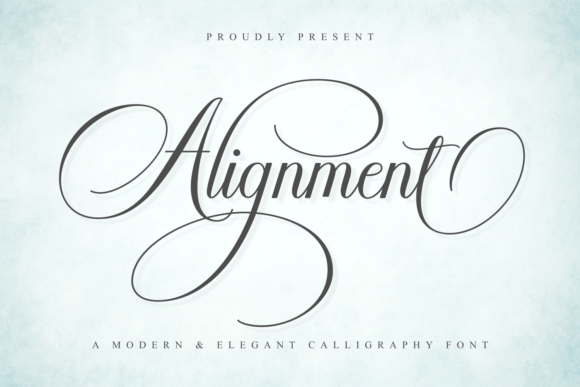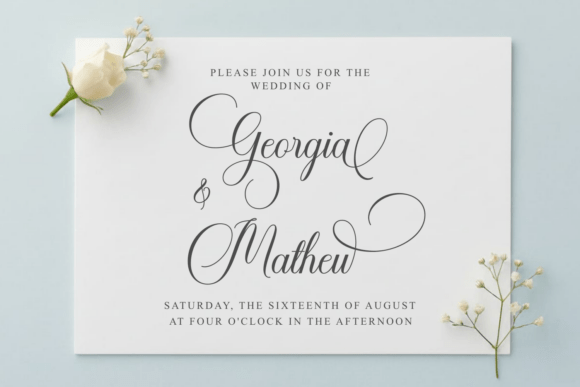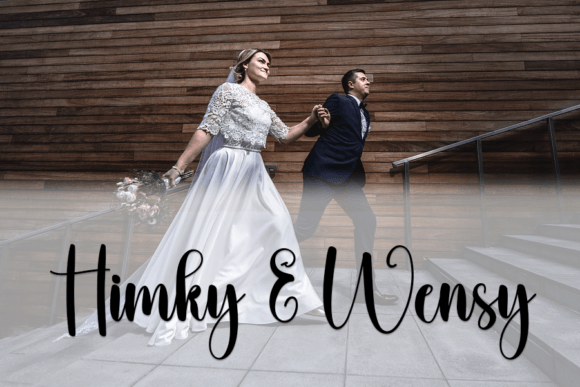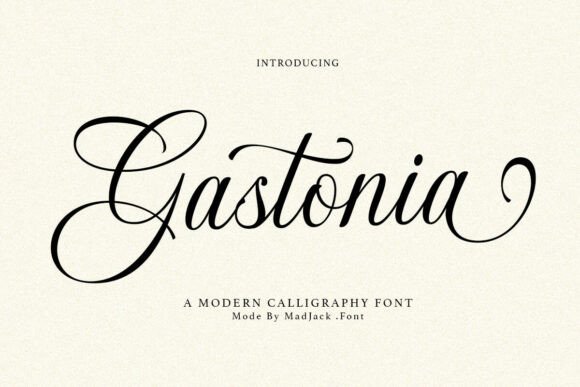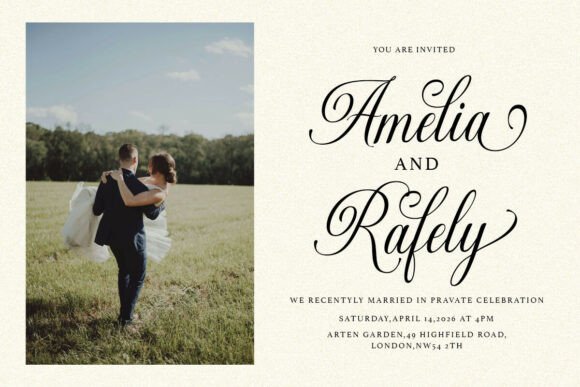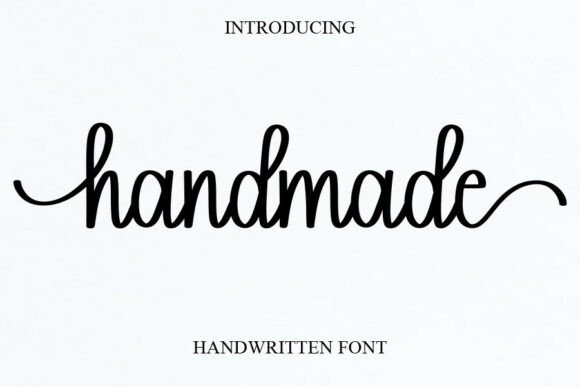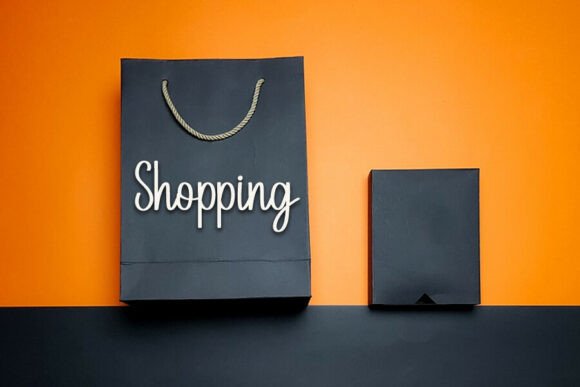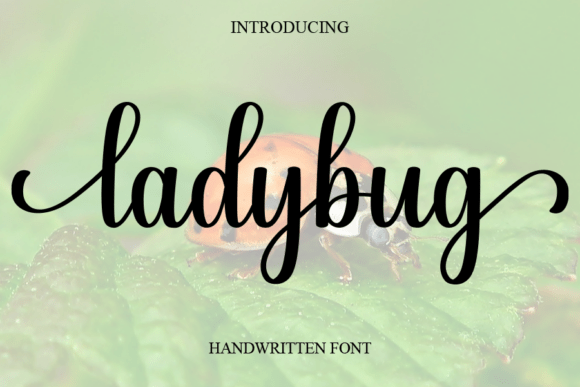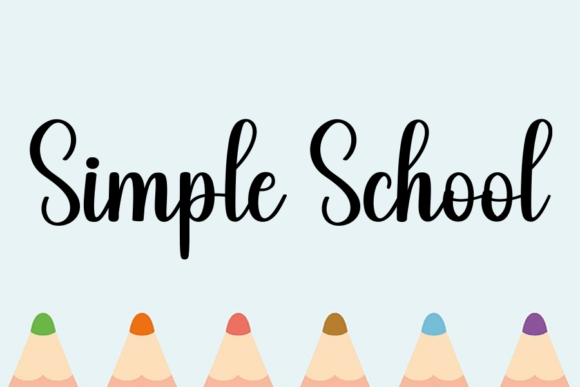
17 Best Script Fonts for Wedding Invitations & Branding in 2026
The Art of the Script: Why 2026 is the Year of Meaningful Typography
Welcome to my curated collection of the most captivating script fonts of the season! If you’ve been following my design journey, you know that I believe typography is the heartbeat of any visual project. It’s not just about what you say, but how it looks when you say it.
As we move through 2026, we are seeing a beautiful shift away from rigid, corporate styles toward designs that feel “human.” We want to see the hand of the maker, the slight tilt of a pen, and the organic flow of a handwritten note.
Whether you’re a fellow designer, a bride-to-be planning her dream wedding, or a creator looking to refresh your brand, these fonts are here to help your message “bloom” with personality and grace.
Expert Insight: Why Choosing the Right Wedding Font is a Design Essential
In the world of branding and events, your choice of a Wedding Font is much more than a decorative detail—it is the first “vibe check” your guests or clients will experience. Here is why it matters more than you might think:
• Setting the Emotional Tone: A sharp, modern calligraphy font like Gastonia tells your guests to expect a black-tie, high-end affair. In contrast, a bouncy, playful script like Maddison signals a relaxed, joy-filled celebration. The font sets the rules for the event before a single word is read.
• Creating Visual Hierarchy: In design, balance is everything. Using a script for names or headlines while pairing it with a clean sans-serif (like in the Honey Wildflower duo) guides the eye to the most important information first.
• The Power of Personalization: In an age of AI-generated content, a font that looks authentically “hand-penned” creates an immediate emotional connection. It suggests that time, care, and a personal touch went into the creation, making the recipient feel truly valued.
• Cohesive Branding: For my fellow creators, using a consistent script across your invitations, thank-you cards, and social media creates a “signature look” that makes your brand (or your wedding day) instantly recognizable and unforgettable.
Pro Tip: When choosing a script, always check the letter connections. The best professional fonts—like the ones I’ve selected below—have “luxurious connections” that ensure the text is as easy to read as it is beautiful to look at.
Quick Selection Table (For Those in a Hurry)
If you are short on time, here is a quick breakdown of my favorite Script Fonts from this collection. Use this to find the perfect vibe for your wedding or branding project at a glance:
Font NameStyle & VibeBest ForStandout Feature
DisneyWhimsical & MagicalFairytale invites, signageUnique, iconic flair
Simple HandwritingClean & AuthenticThank you notes, body textExceptional legibility
Stylish AlphabetSoft & FeminineLuxury labels, headersGraceful, fluid strokes
HandmadeSweet & JoyfulGreeting cards, lookbooksCasual yet fancy energy
AlignmentLuxury CalligraphyHigh-end branding, menusElegant swashes (PUA)
Thick BlackSophisticated WeightBold titles, luxury logosWeighted feminine touch
MaddisonRomantic & PlayfulBespoke stationeryBouncy baseline movement
Honey WildflowerHarmonious DuoComplete brand identityBuilt-in font pairing
LadybugFriendly & ApproachableGarden weddings, brandingCheerful, easy-going feel
Joseph SophiaClassic & WarmBusiness cards, invitesStunning alternates
QuincyCharming & WhimsicalPersonal letters, quotesHeart-shaped “i” dots
GastoniaEditorial LuxuryUpscale packagingTimeless, class-act style
Pink PastelAiry & DelicateBoutique brandingLight, refreshing lines
Handmade CalligraphyProfessional & CleanRestaurant menus, labelsLuxurious letter connections
Vintage SignatureArtistic & RefinedEditorial headers, labelsPurposeful, hand-penned feel
WelcomeStylish & InvitingProfessional stationeryPolished, consistent flow
Mega Font BundleEclectic & VersatileDigital planners, DIY40 styles in one pack
1. Disney Script Font
Disney Script Font-Elegant Disney Script font display with delicate, unique handwritten lettering used for wedding invitations and titles
Disney Script Font-Handwritten Disney Script typography example on a cream background, showcasing unique letterforms for wedding stationery and elegant designs
I’ve always found that the Disney font brings a specific kind of magic that’s hard to replicate. It’s a delicate, handwritten choice that I’d personally reserve for playful wedding details—think “Happily Ever After” signage or informal rehearsal dinner invites.
The way the characters flow feels incredibly unique, making it a standout among other Script Fonts when you want to lean into that whimsical, fairytale aesthetic without looking overly traditional.